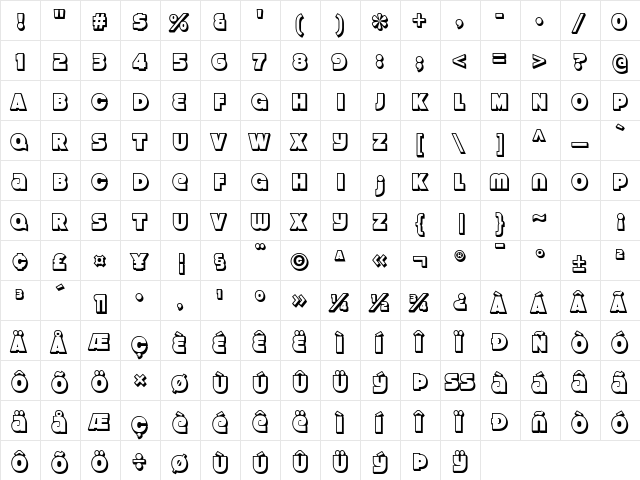
Strenuous 3D Font Preview
Strenuous 3D
Strenuous 3D Font Details
| Style | 3D |
Design Context for Strenuous Typeface
Strenuous is a composed and adaptable typeface that performs quietly and consistently across a wide range of design contexts.